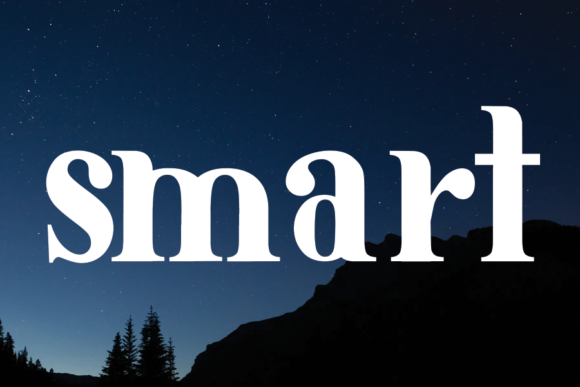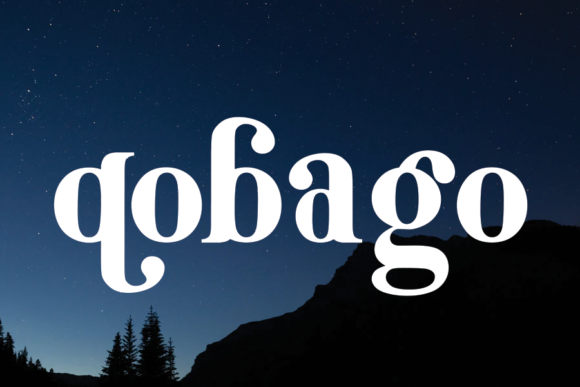
Introduction to Qobago Font
Qobago is a unique and chunky lettered display font.
Add this simple and friendly font to each of your creative ideas and notice how it makes them come alive .
Qobago Font offers exceptional quality and versatility, making it a valuable addition to your design toolkit. Whether you’re creating for personal projects or commercial use, Qobago Font delivers professional results.